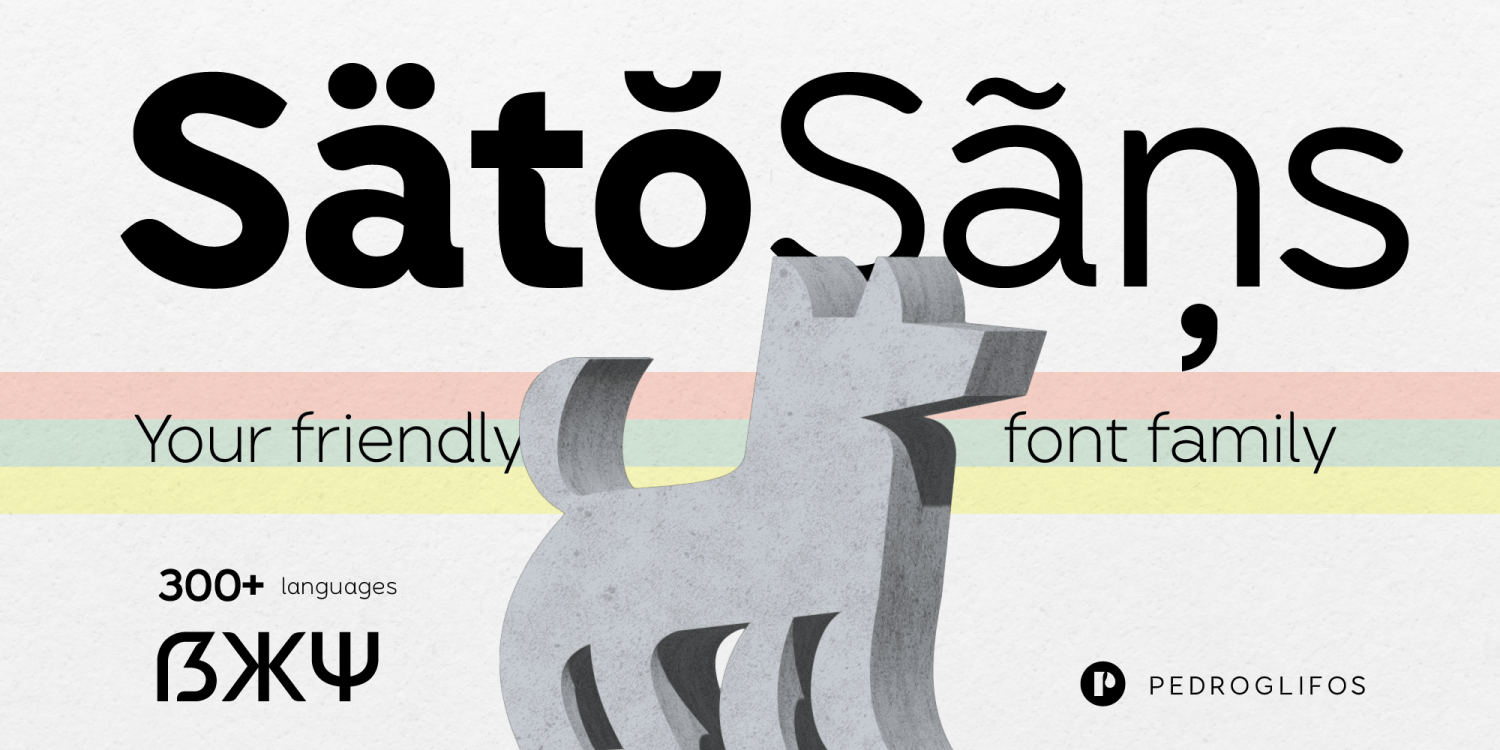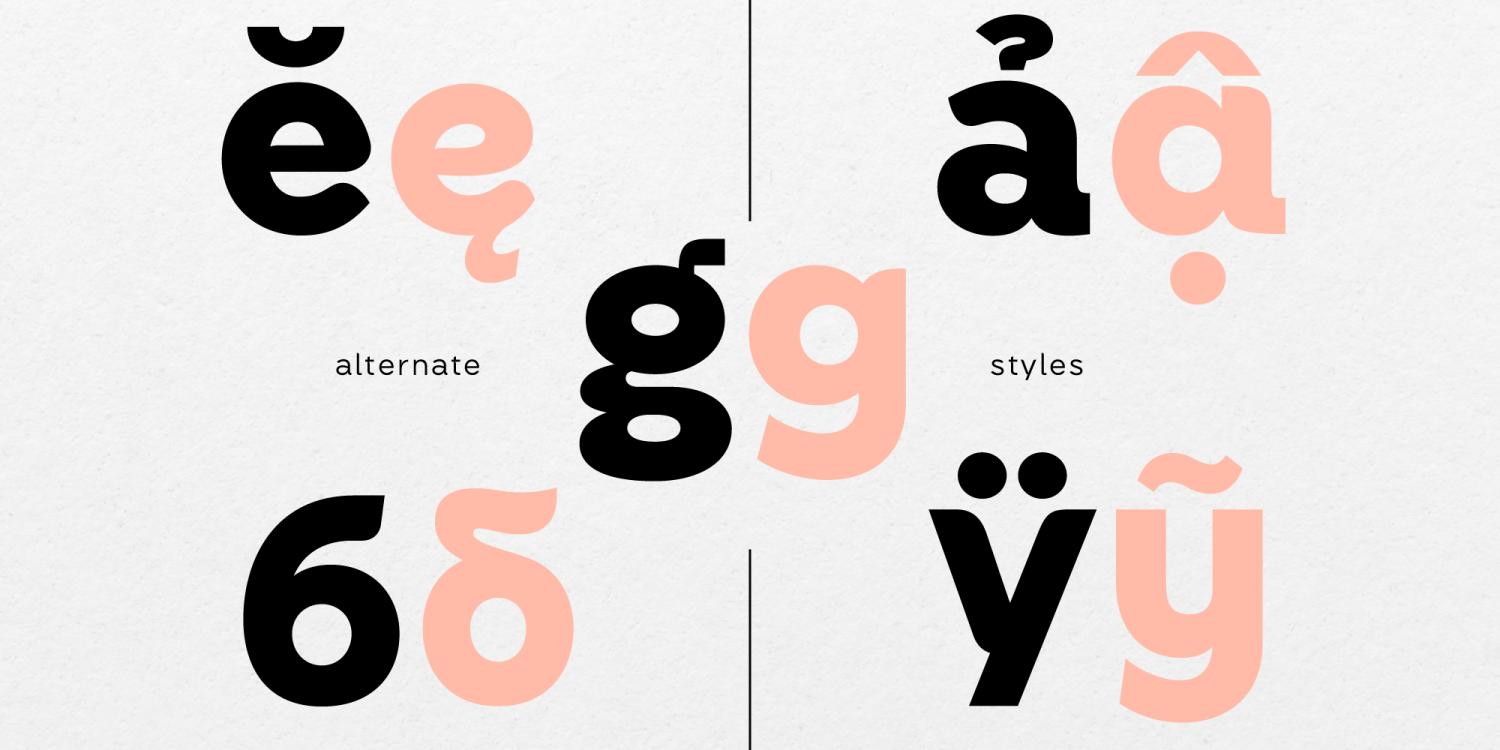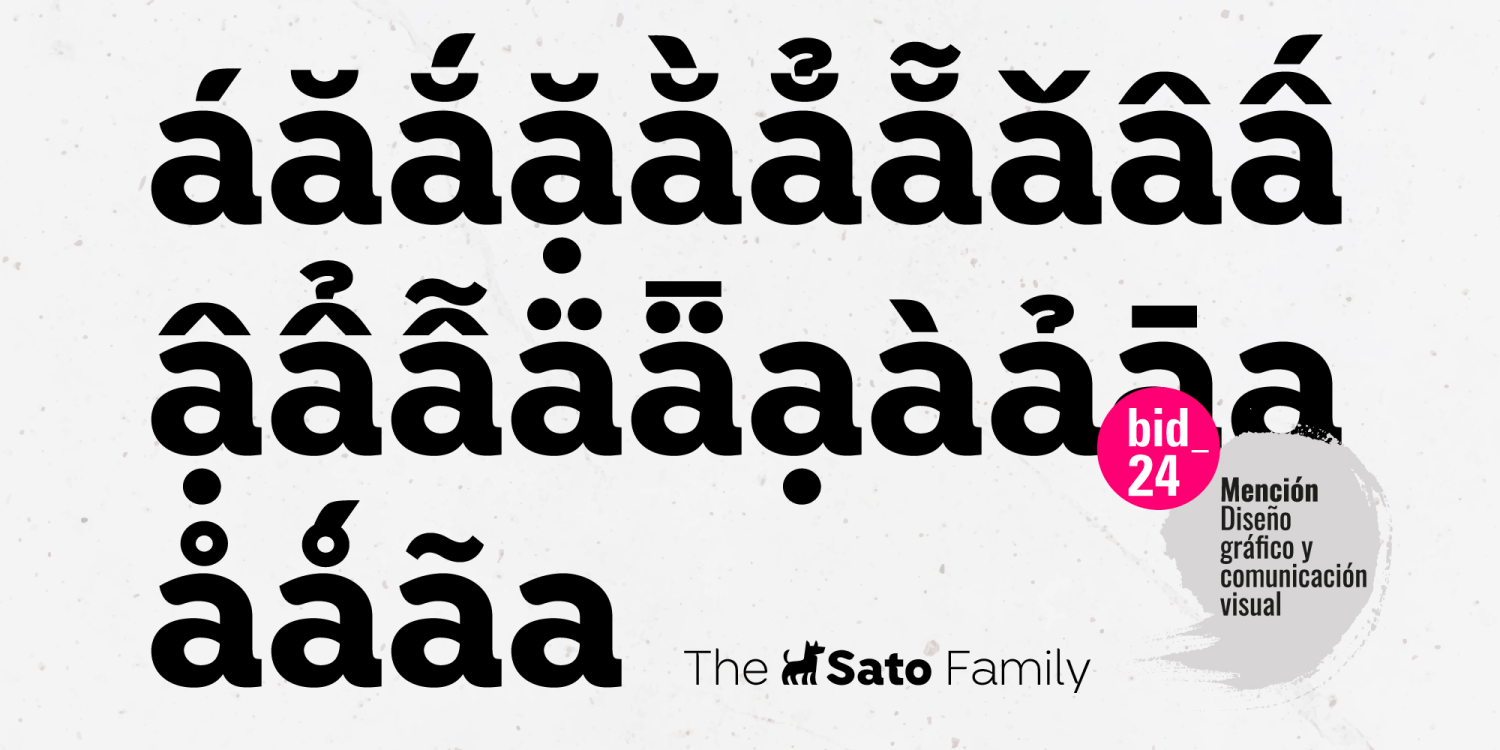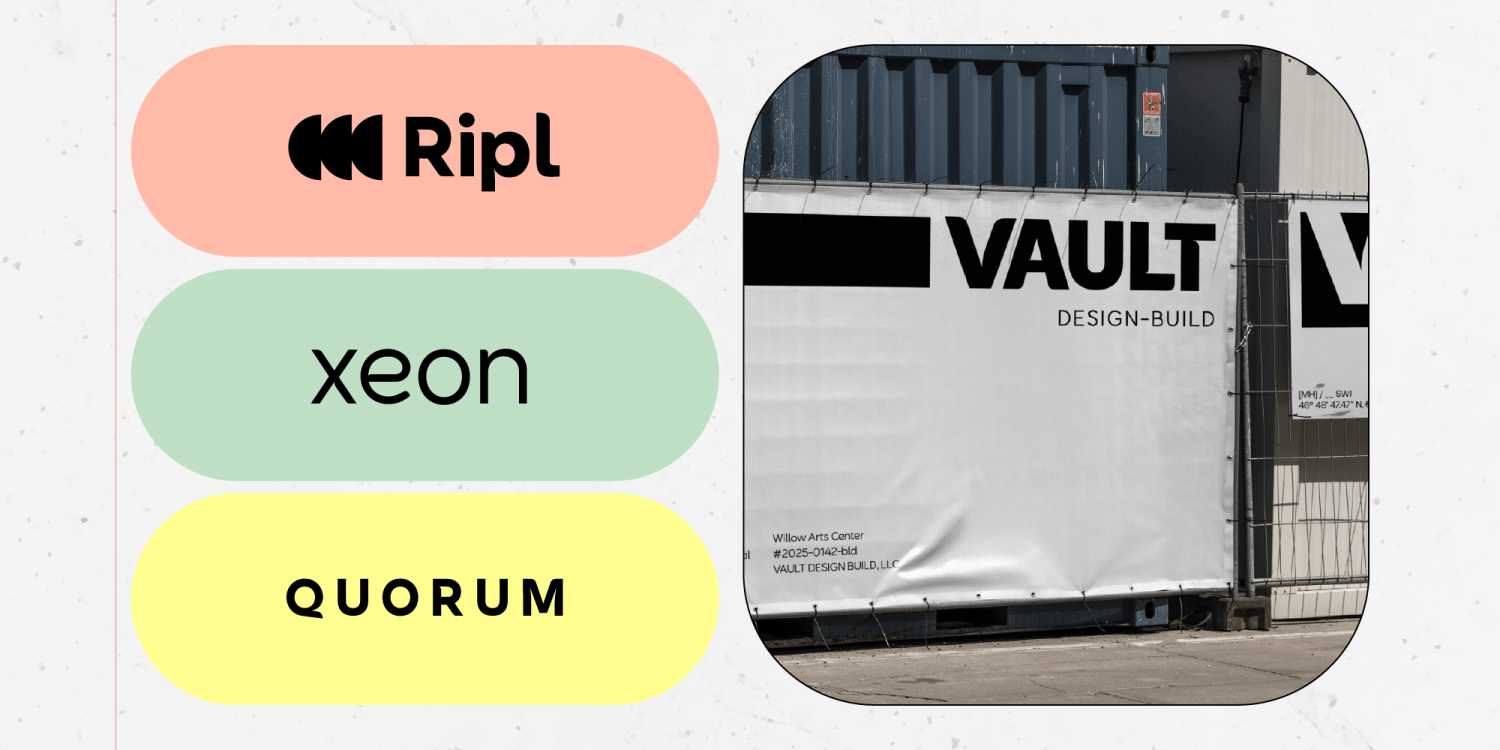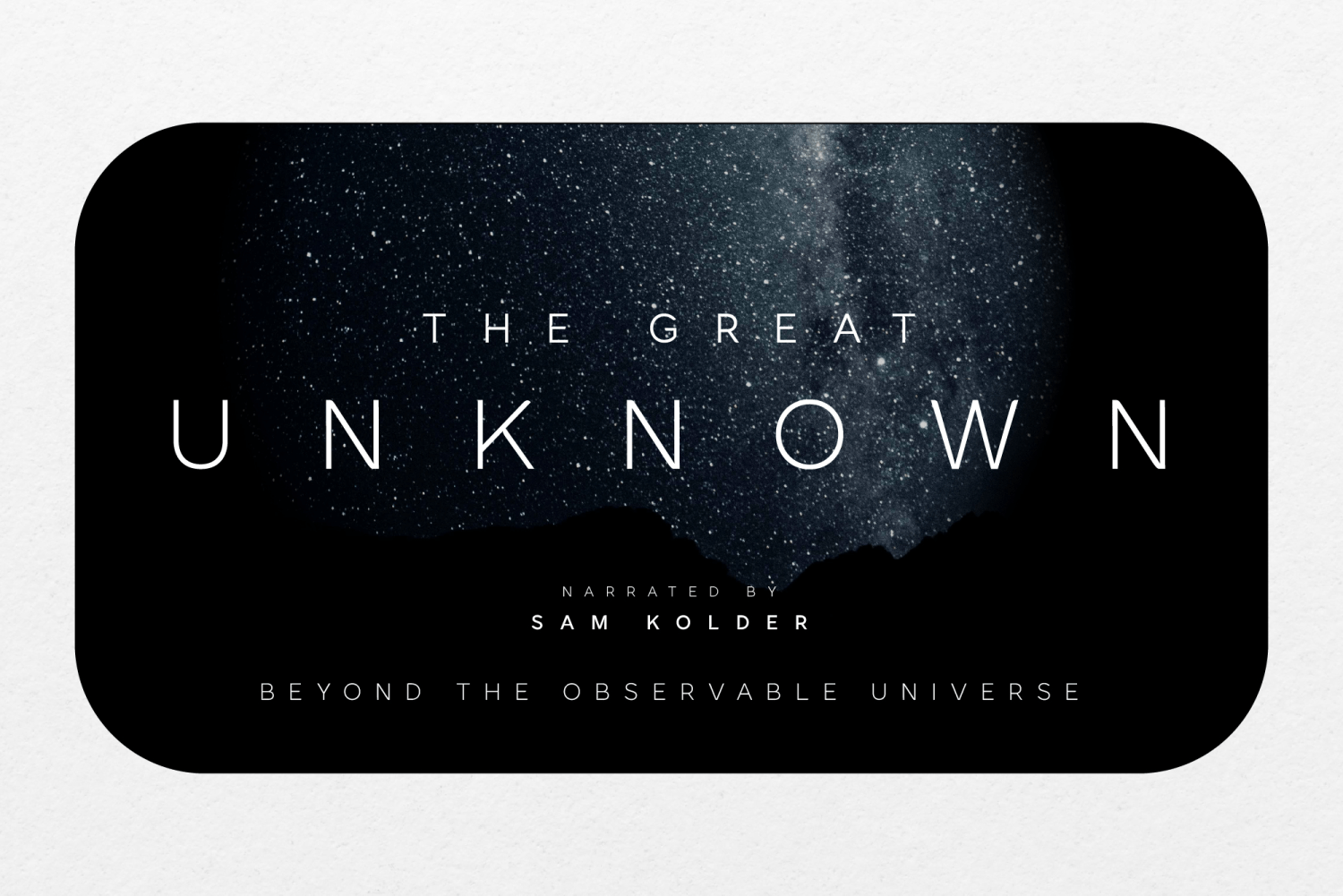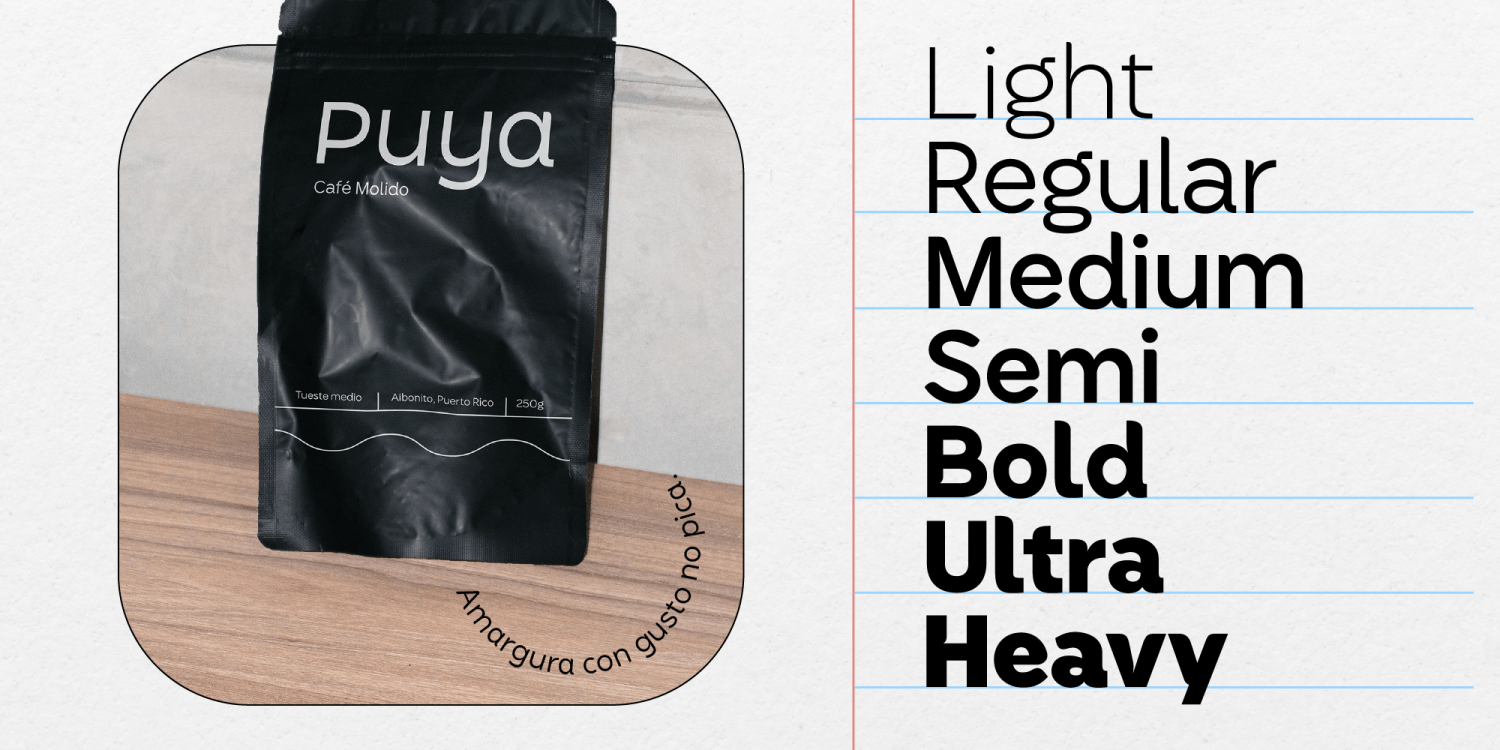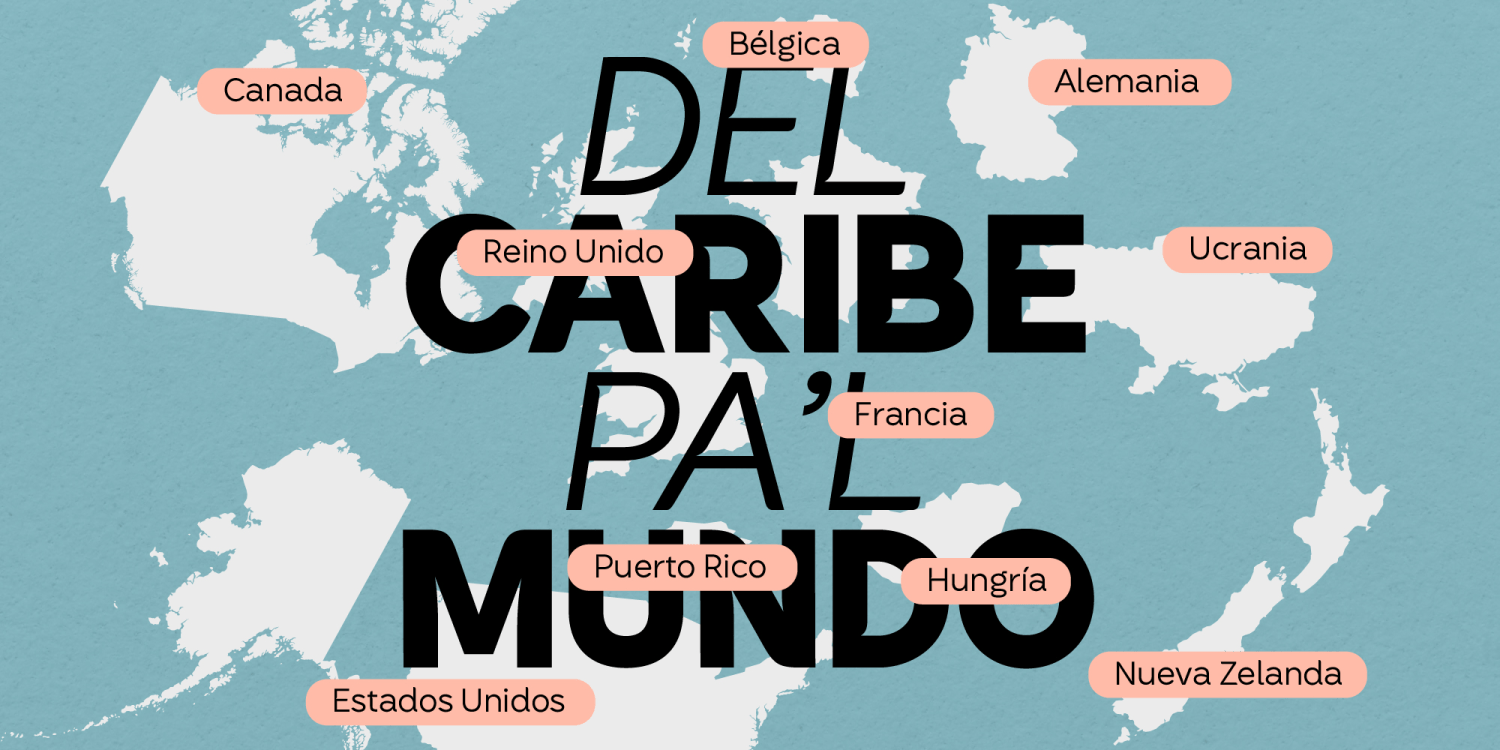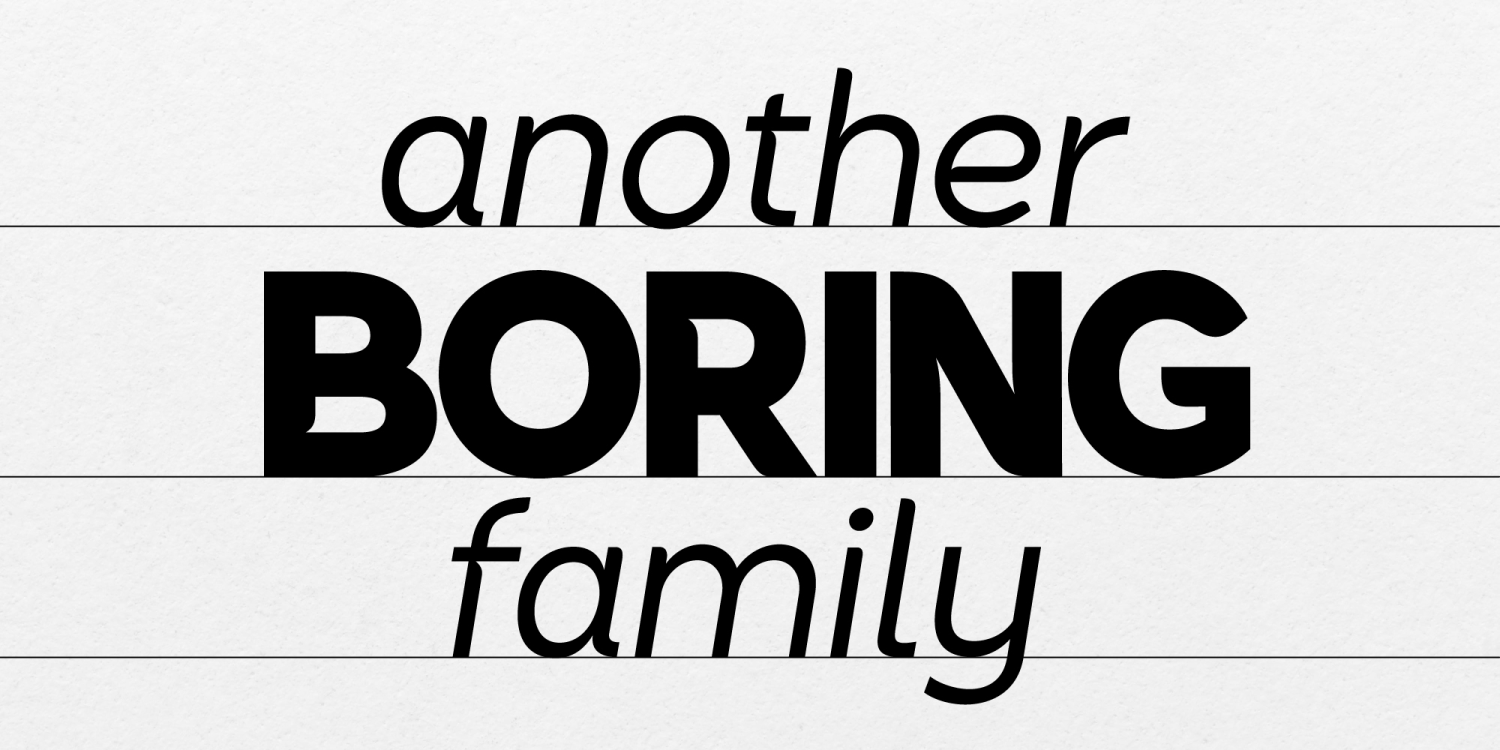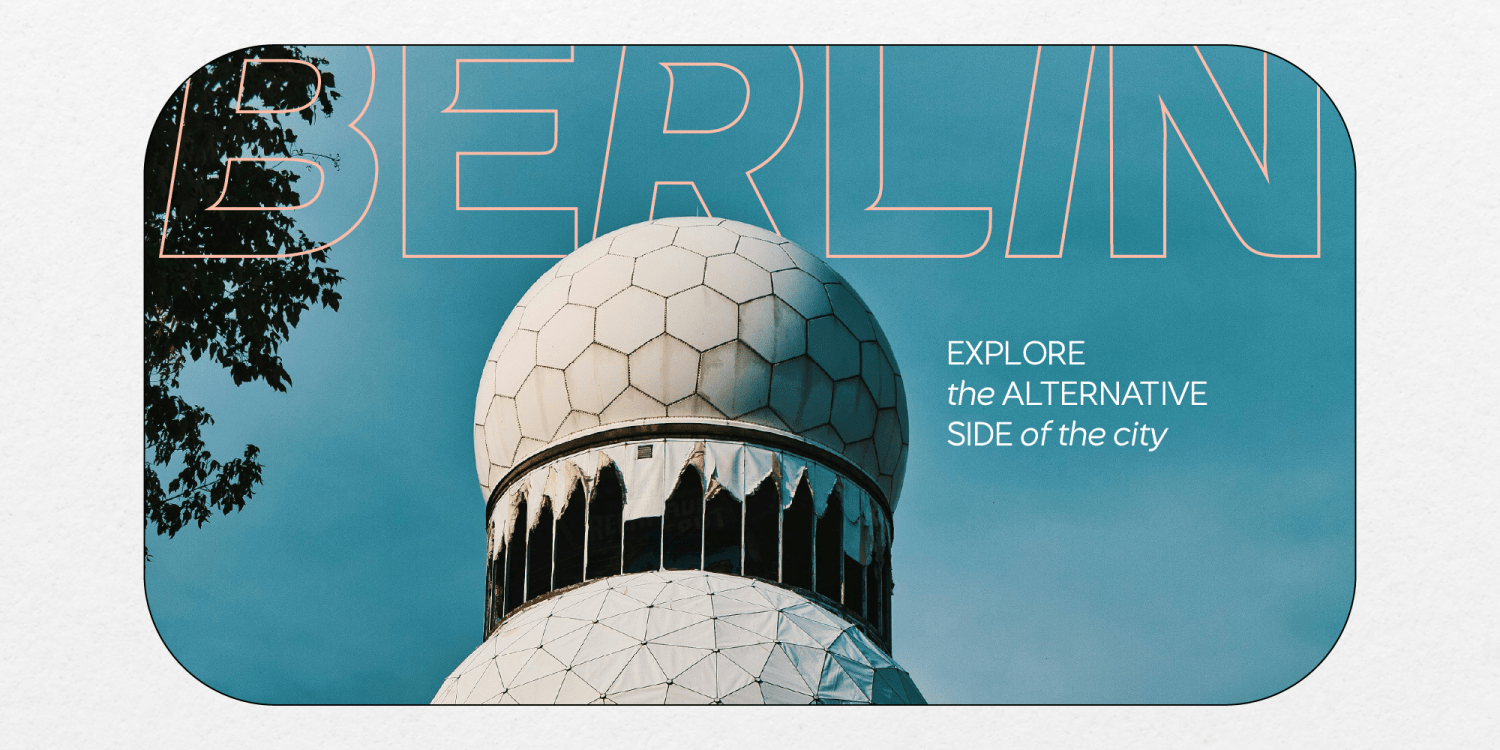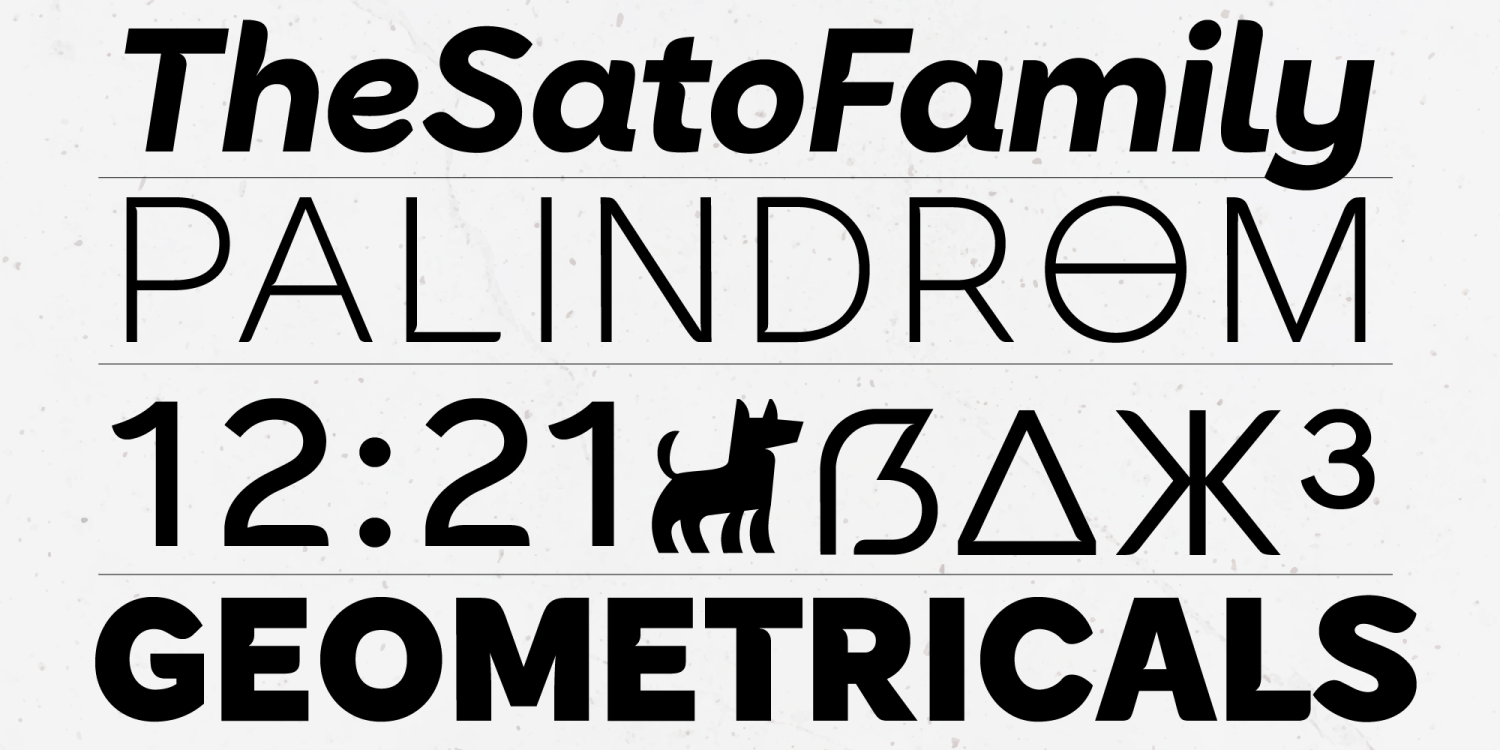
Sato
Font Family by Pedroglifos
Sato is a versatile and friendly sans-serif font, designed to connect with everyone it encounters. It's charm effortlessly adapts to both text and display settings, ensuring a seamless reading experience in any context. It's a low contrast geometric hybrid featuring subtle inktraps and smooth aerodynamic edges. Some characters feature a humanistic touch allowing a joyful typographic expression. Sato supports over 467 languages in three writing systems: Cyrillic, Greek and Latin. It has stylistic sets identified within the open type panel, old style numbers, arrows, and plenty of world currencies.